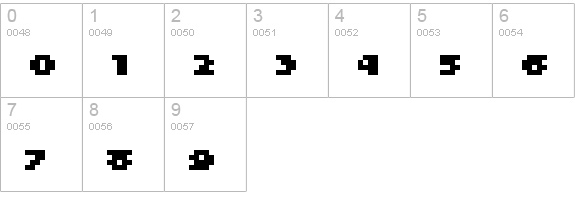
Kroeger 04_65 font is a modern and stylish typeface that exudes sophistication and elegance. Its sleek lines and clean design make it perfect for a wide range of design projects, from branding to editorial design. This versatile font comes in a variety of weights and styles, allowing you to create unique and eye-catching designs with ease. The best part? Kroeger 04_65 font is completely free to download at FontsMarket.com. You can add this beautiful font to your collection without any cost, making it a valuable resource for designers and creatives alike. Don't miss out on the opportunity to enhance your projects with this stunning typeface - download Kroeger 04_65 font today and take your designs to the next level!